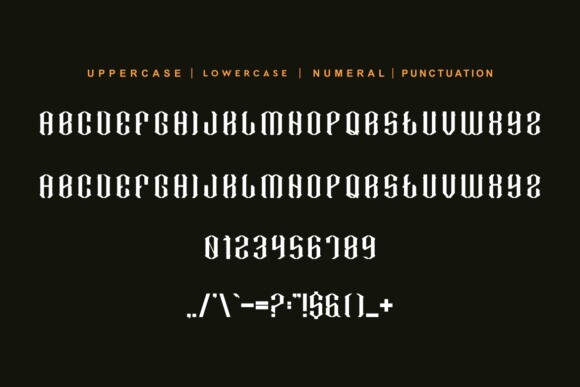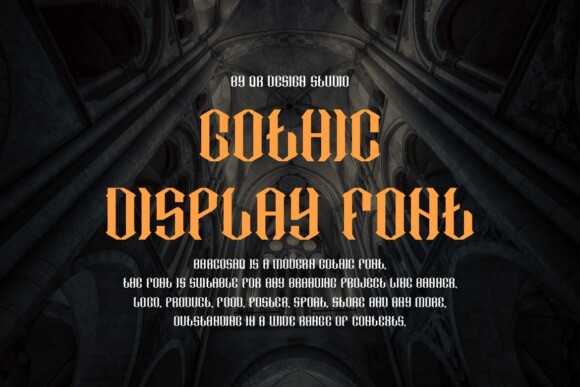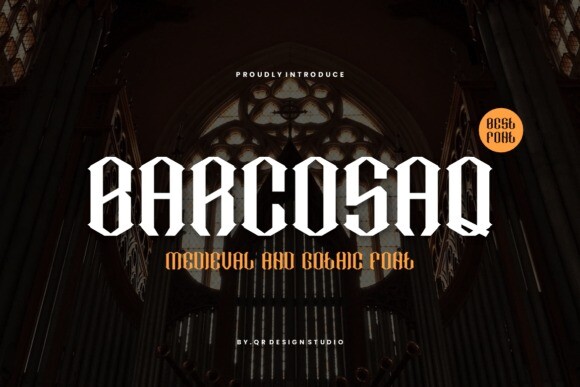
Barcosaq Font
Designer: qrdesignstd
Barcosaq Font is a modern and cool display font. Its clean lines and contemporary design make it ideal for headlines, posters, and branding projects.